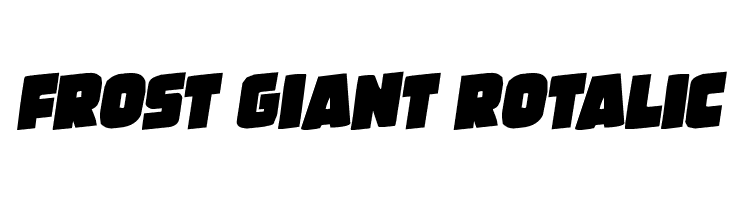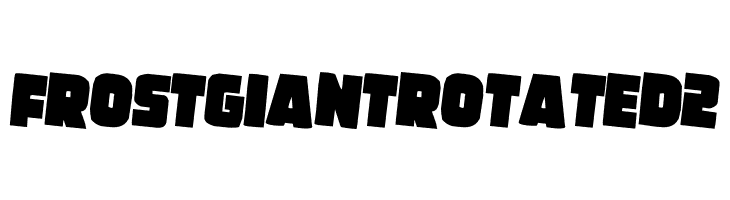
A bold, slanted, and modern font with a strong, impactful presence.
A bold, italicized font with thick, angular strokes and high contrast.
A bold, slanted font with angular, dynamic characters.
A bold, blocky font with thick, uniform strokes and slightly rounded edges.
Bold, blocky font with a modern, angular design.
A bold, blocky font with a dynamic slant and uniform width.
A bold, dynamic font with thick, slanted characters and a modern aesthetic.
A bold, semi-italic typeface with strong, angular lines and a dynamic presence.
A bold, semi-italic font with blocky characters and minimal contrast.
A bold, geometric font with a strong, blocky appearance.